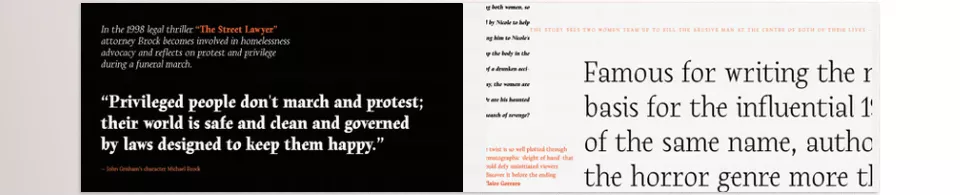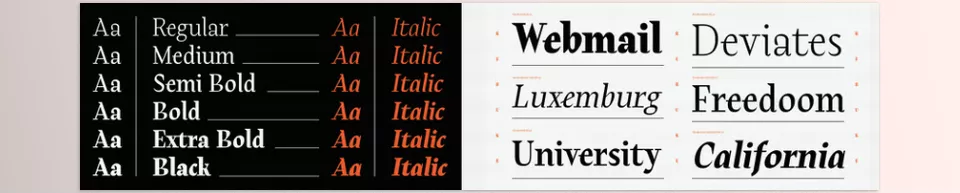
The Rebuke Font Family 12xOTF is a polished serif typeface that offers twelve styles in one compact package. By mixing classic influences with fresh details, it gives today’s editorial work the elegance and legibility it needs.
Tour De Force – Rebuke Font Family Features
• Variety of Styles: 6 weights plus matching italics yield a full typographic palette for headers, captions, and running text.
• Distinctive Design: Lower serifs drift toward a Didone axis, angular stems borrow from modern sanses, and light calligraphic wedges soften the terminal bite.
• Extended Serifs: Neighbouring letters sway together, hiding space and lending paragraphs a more continuous, inviting rhythm.
• Vintage Touch: Subtle curves echo sign-painting artifacts, giving contemporary layouts a whisper of time-tested authority without tipping retro.
• Editorial Excellence: Designed for print and screen alike, it holds detail crisp at point sizes where most typefaces fall apart.
• OpenType Features: An initial forms toggle inside the OpenType menu lets you add refined starts to names, headlines, or any bespoke text frame.
Preview Rebuke Font Family
Image 1: Elegant and versatile, this font family brings a signature flair to editorial spreads.
Rebuke Font Family - Elegant and versatile, this font family brings a signature flair to editorial spreads.
Image 2: A warm mix of modern lines and vintage curves, the typeface reads smoothly at any size.
Rebuke Font Family - A warm mix of modern lines and vintage curves, the typeface reads smoothly at any size.